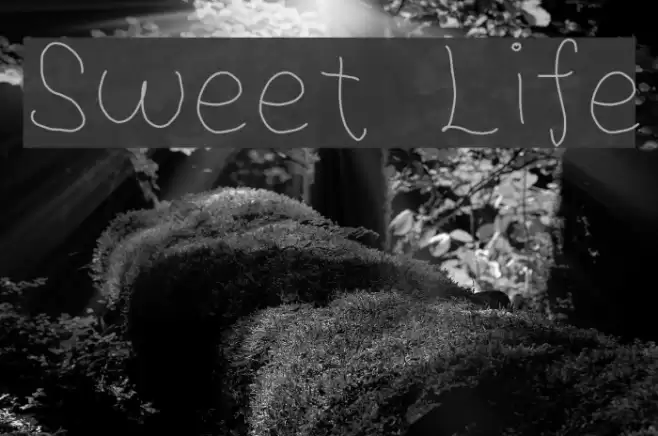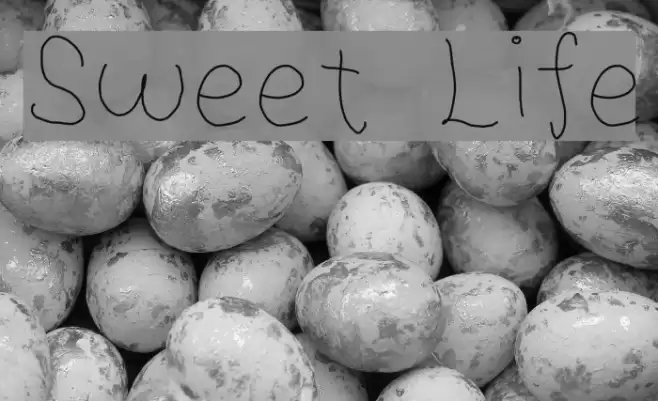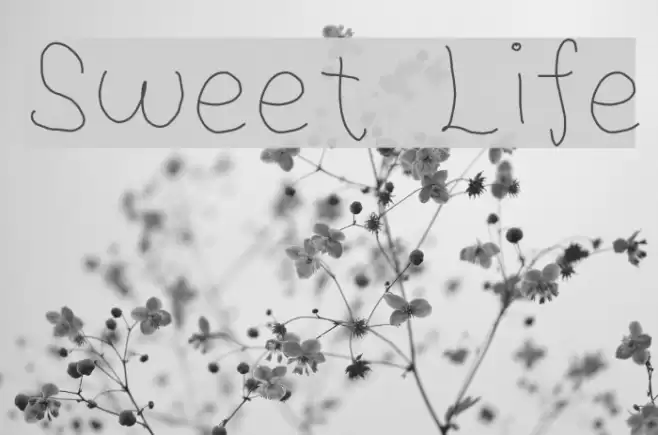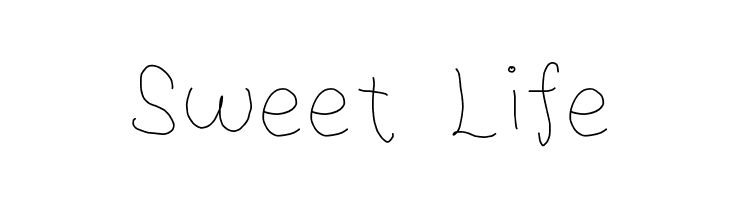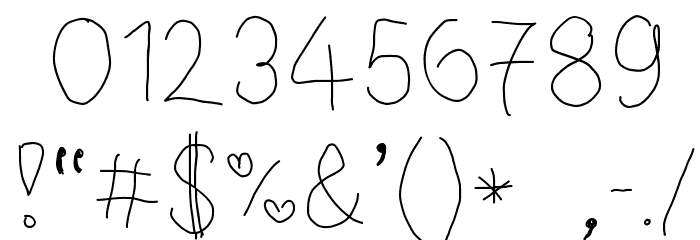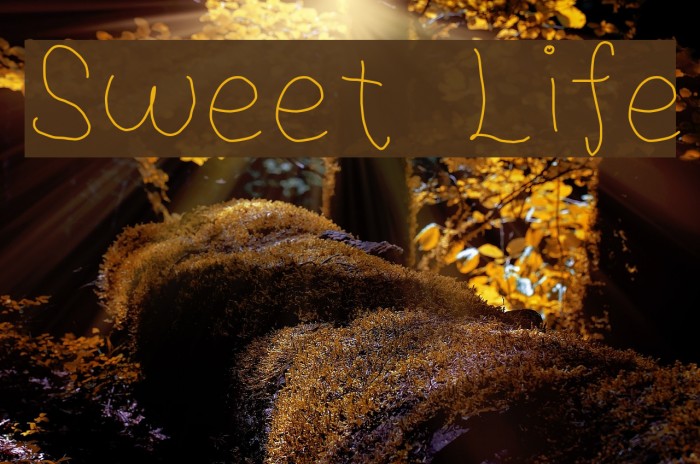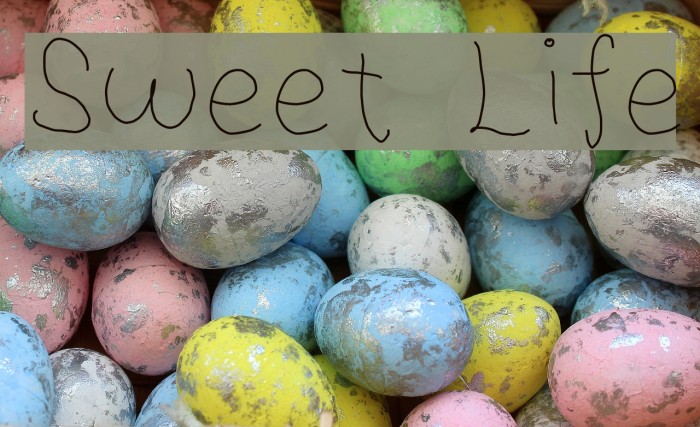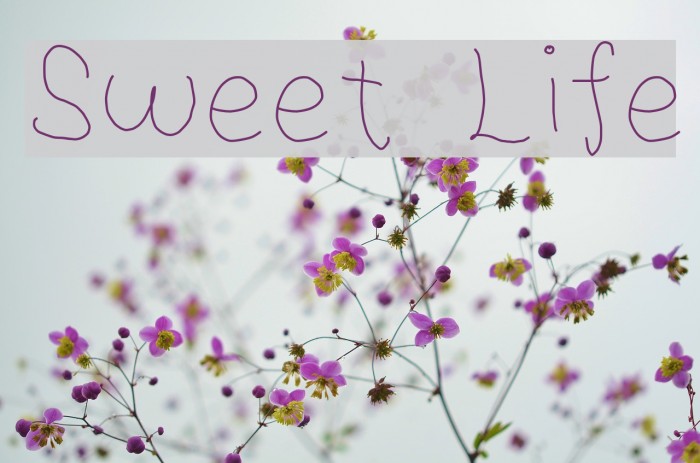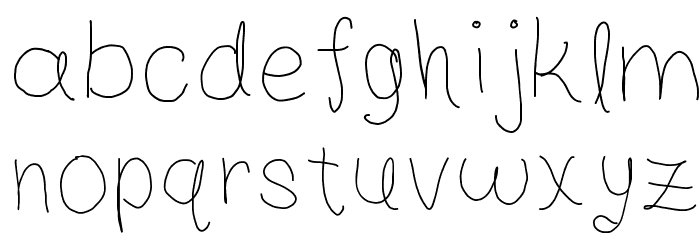
Sweet Life Font
Sweet Life Description
This font features a playful and whimsical handwritten style, characterized by its thin, flowing lines and slightly irregular shapes. The letters have a casual, informal appearance, with a touch of elegance due to their smooth curves and gentle loops. The uppercase letters maintain a consistent height, while the lowercase letters vary slightly, adding to the font's charm. Numbers and special characters are crafted with the same playful spirit, making them blend seamlessly with the alphabet. The overall design is light and airy, perfect for conveying a sense of fun and creativity.
A playful, whimsical handwritten font with thin, flowing lines from Handwritten fonts.
- Proposed Projects: Ideal for greeting cards, children's books, playful branding, and creative invitations.
- Overall Style: Playful, Whimsical
- Use Case: Greeting cards, Invitations, Creative projects